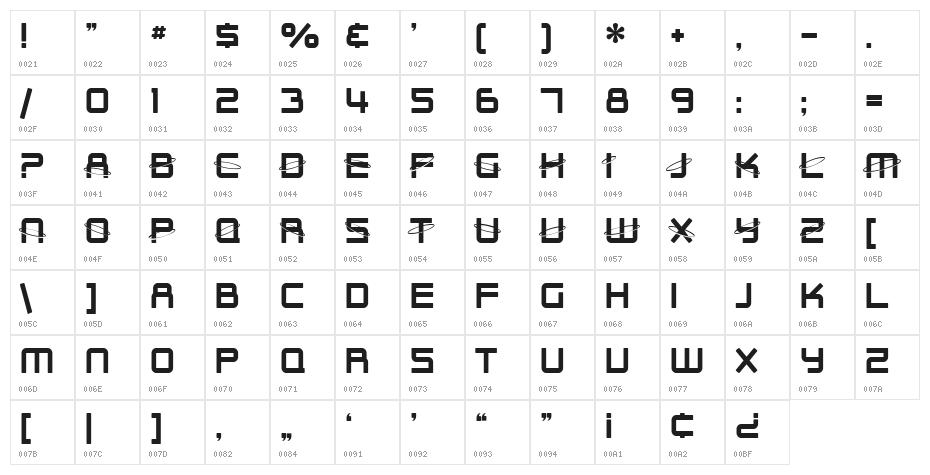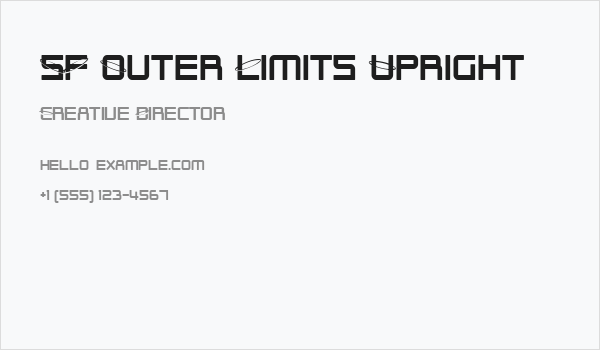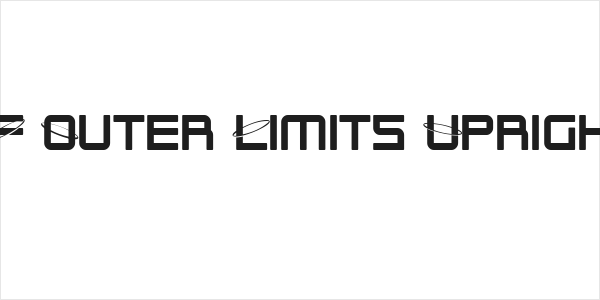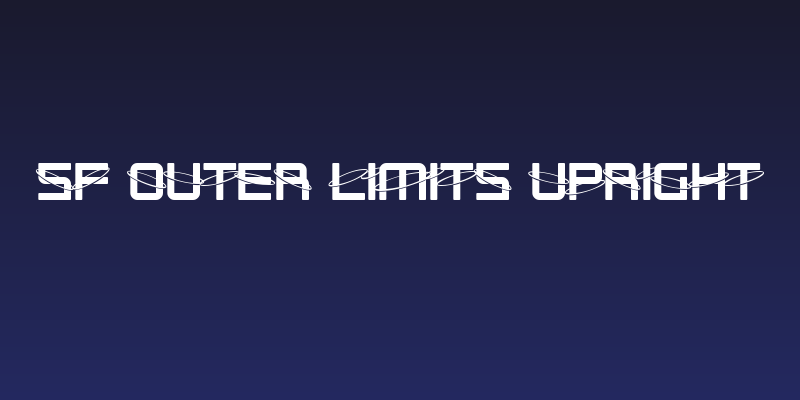
SF Outer Limits Upright Font
SF Outer Limits Upright Description
This font features a futuristic and geometric design, characterized by its bold and angular letterforms. The uppercase and lowercase letters maintain a consistent height, creating a uniform appearance. The characters are constructed with straight lines and sharp corners, giving them a modern and technical feel. The numerals and special characters follow the same design principles, ensuring a cohesive look across all elements. The font's style is reminiscent of science fiction and technology themes, making it suitable for projects that require a contemporary and innovative aesthetic.
| Proposed Projects | Ideal for technology branding, sci-fi movie posters, video game titles, and modern digital interfaces. |